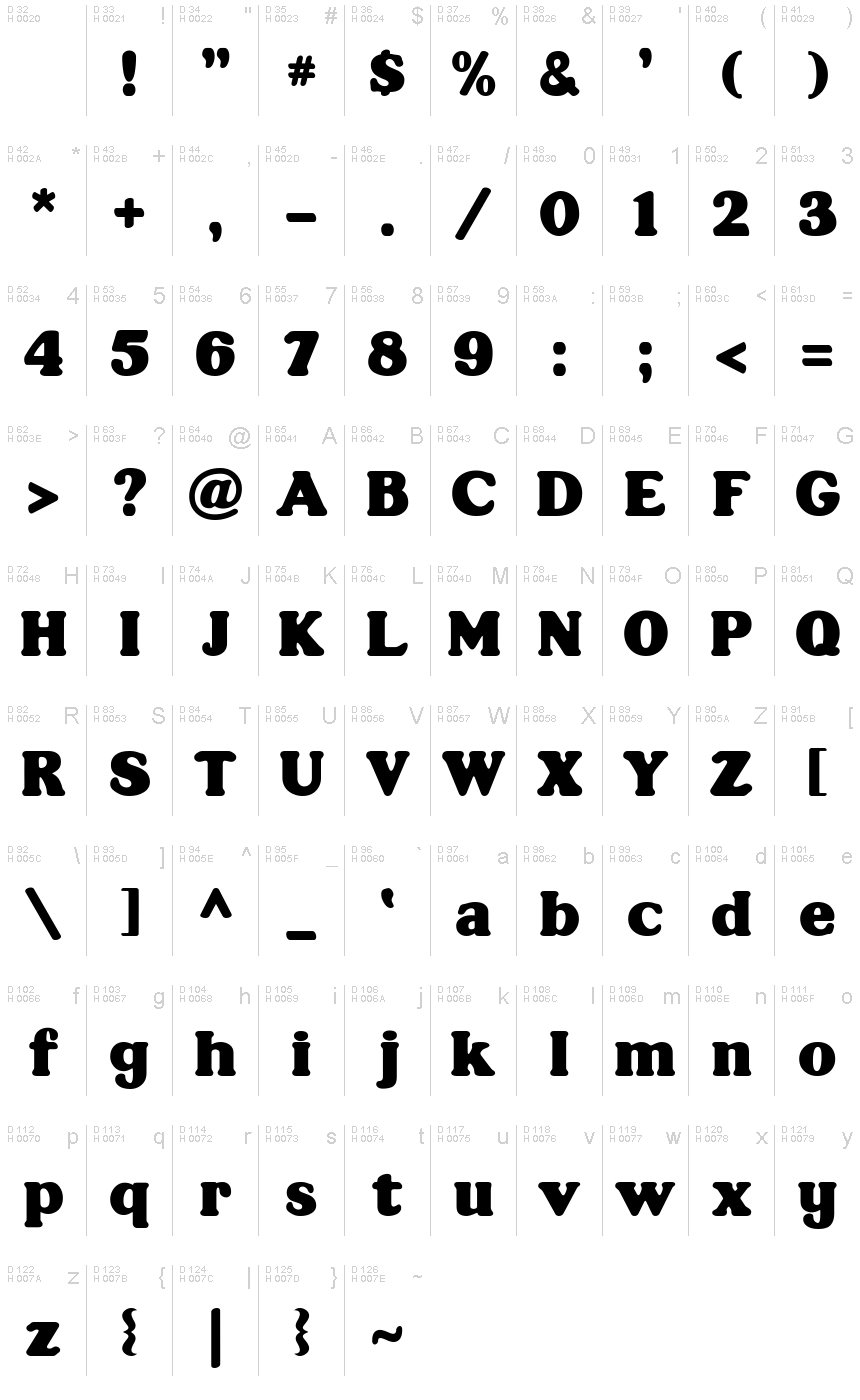
Aurelia
Aurelia, designed by Fendi, captivates at first glance with its striking bold serif structure. This font exudes a sense of sophistication and elegance, characterized by its strong presence and pronounced features. The combination of graceful curves and sharp edges creates a visual tension that is both dynamic and inviting.
Aurelia's robust character makes it ideal for impactful headlines or prominent branding elements, perfect for luxury products or creative projects seeking distinction. Its balanced proportions lend themselves well to both print and digital applications, ensuring clarity without compromising style. This unique font stands out in any design context, making it an excellent choice for enhancing the narrative of a brand or capturing attention in editorial layouts.